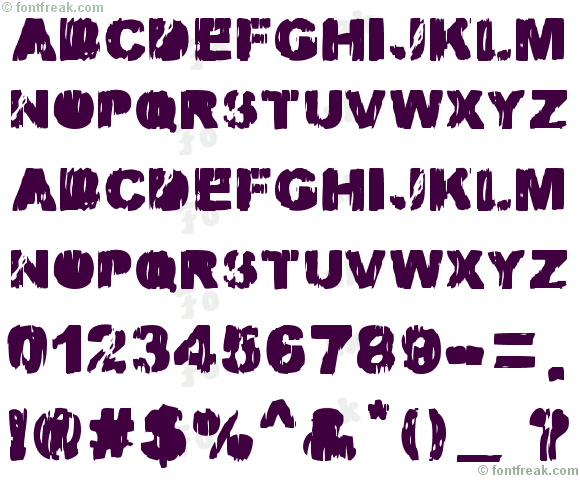
MALAMADRE
MALAMADRE is a striking display typeface created by woodcutter Manero, characterized by its unique and bold aesthetic. This font falls into the decorative category, designed to capture attention and evoke emotion. The visual characteristics of the MALAMADRE font feature irregular stroke weights and a high level of contrast, lending it a dynamic and expressive quality. Each character has a distinct, somewhat distressed look, with decorative elements that resemble woodcuts, making it perfect for creative projects that aim to stand out.
The MALAMADRE font is an excellent choice for various applications. Its eye-catching design makes it ideal for wedding invitations, where a touch of whimsy and individuality is desired. Additionally, it shines in movie posters, where its boldness can convey a sense of drama and excitement. Restaurant menus can also benefit from its unique flair, drawing diners' attention to special dishes or thematic events. Furthermore, it's suitable for branding materials, particularly for businesses that want to convey a rustic or artisanal vibe.
What truly sets the MALAMADRE font apart is its ability to blend artistic flair with functionality. The irregularities in its design provide a handcrafted feel, making it resonate with audiences who appreciate authenticity and creativity. Whether you are designing for print or digital media, the MALAMADRE font free download is a valuable addition to your typography toolkit, ensuring your projects leave a memorable impression.